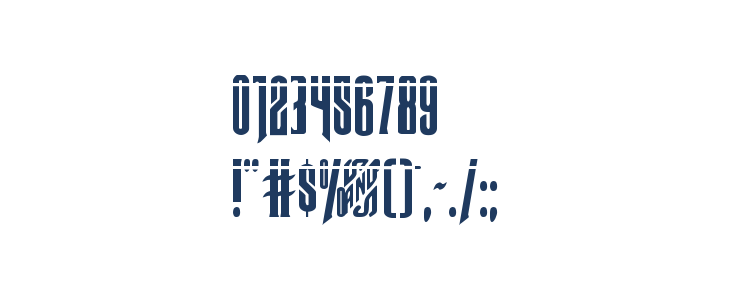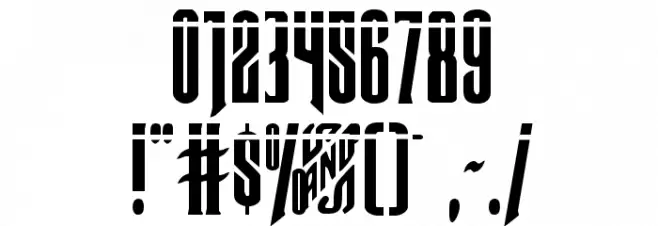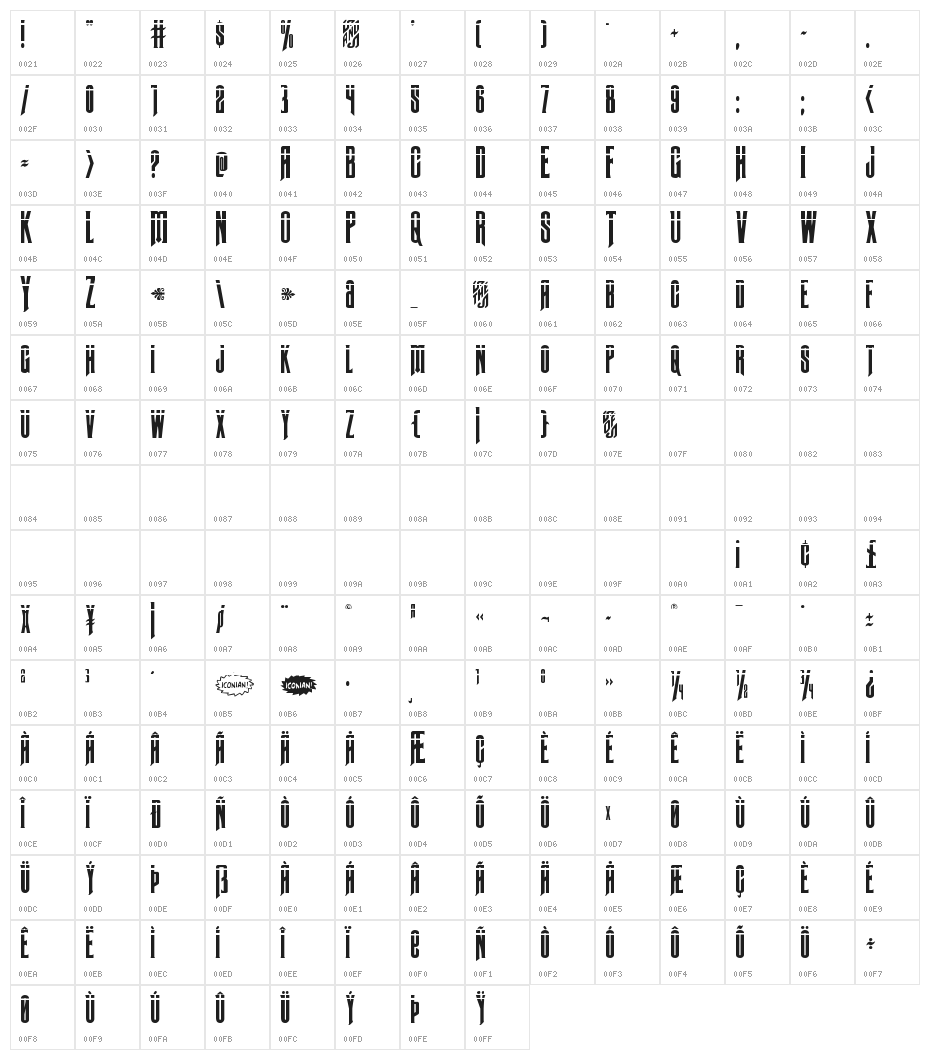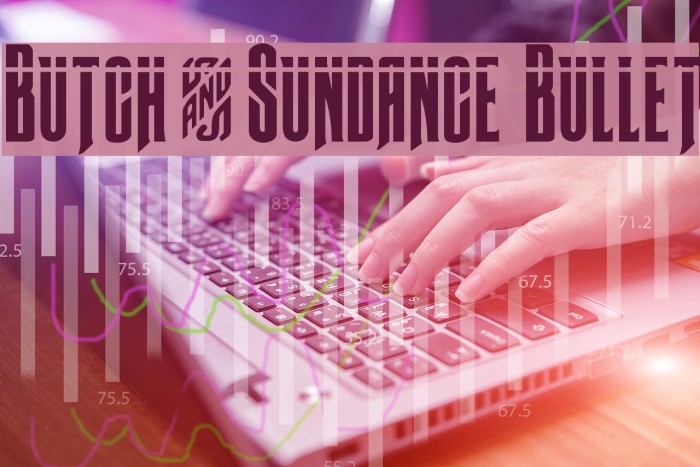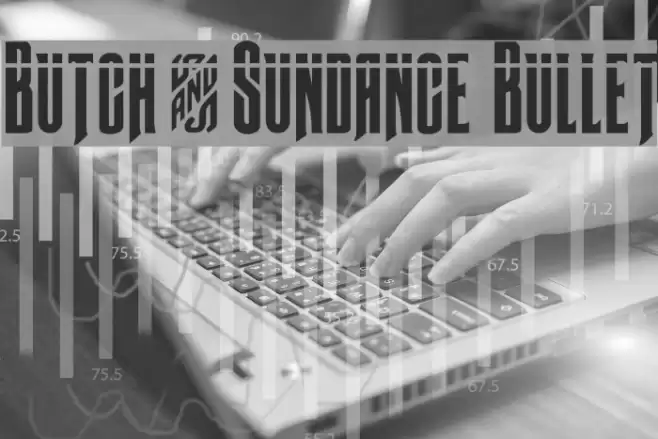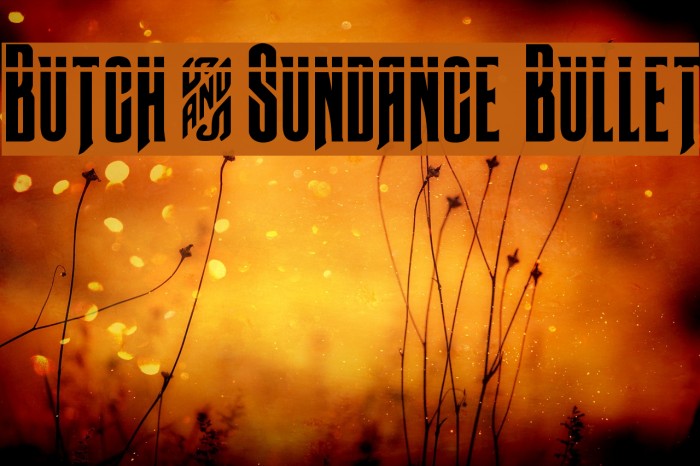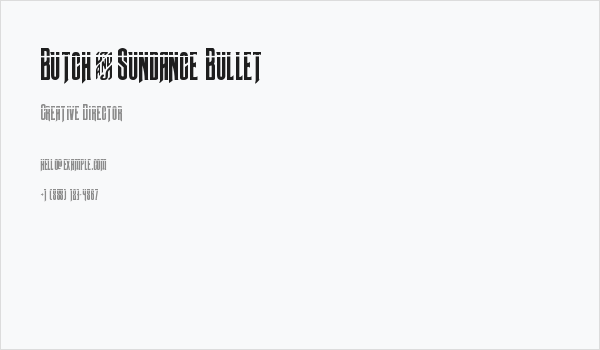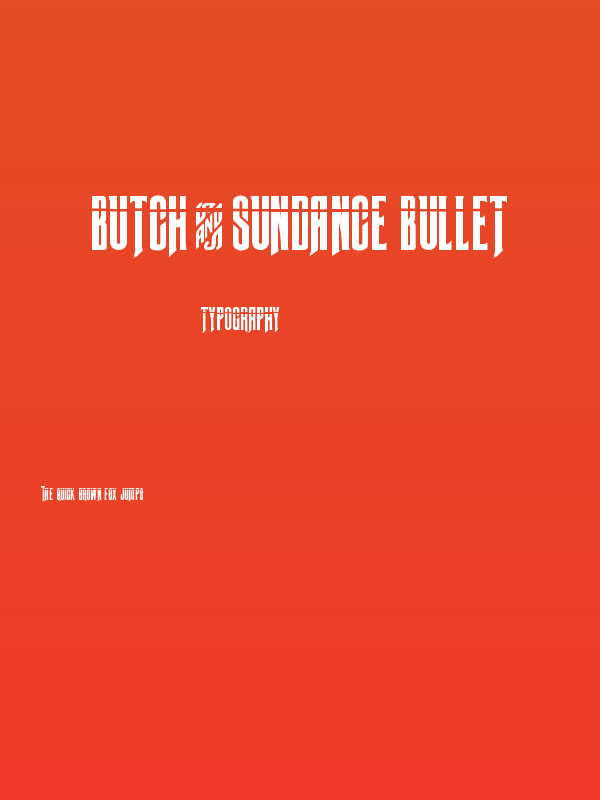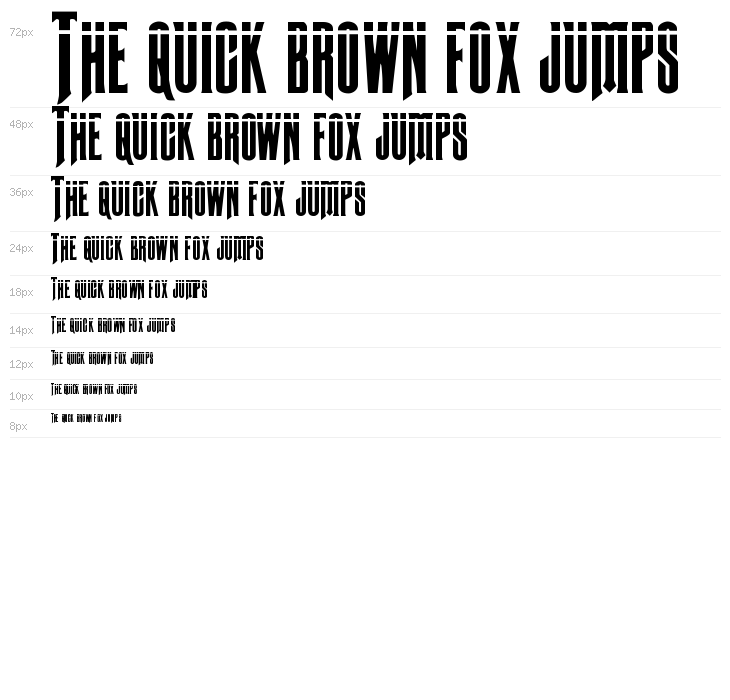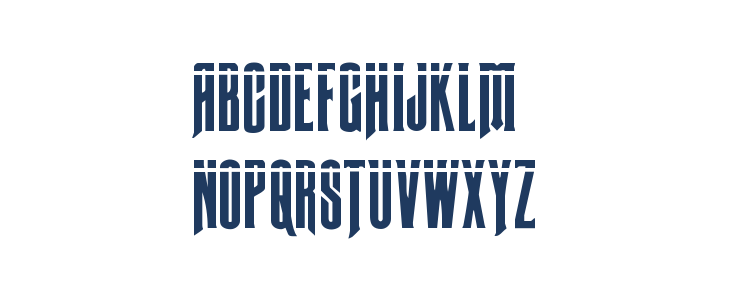
Butch & Sundance Bullet Font
Butch & Sundance Bullet Description
This font features a bold and striking design with a strong presence. The characters are tall and narrow, with sharp, angular serifs that give it a distinct, edgy look. The uppercase letters are particularly elongated, creating a dramatic effect that commands attention. The numbers and special characters maintain the same bold style, ensuring consistency across all text. The overall appearance is reminiscent of vintage Western or outlaw themes, making it ideal for projects that require a rugged, adventurous aesthetic.
| Proposed Projects | Ideal for posters, logos, and branding projects that require a bold, adventurous look. Suitable for themed events, movie titles, or any design needing a vintage Western flair. |